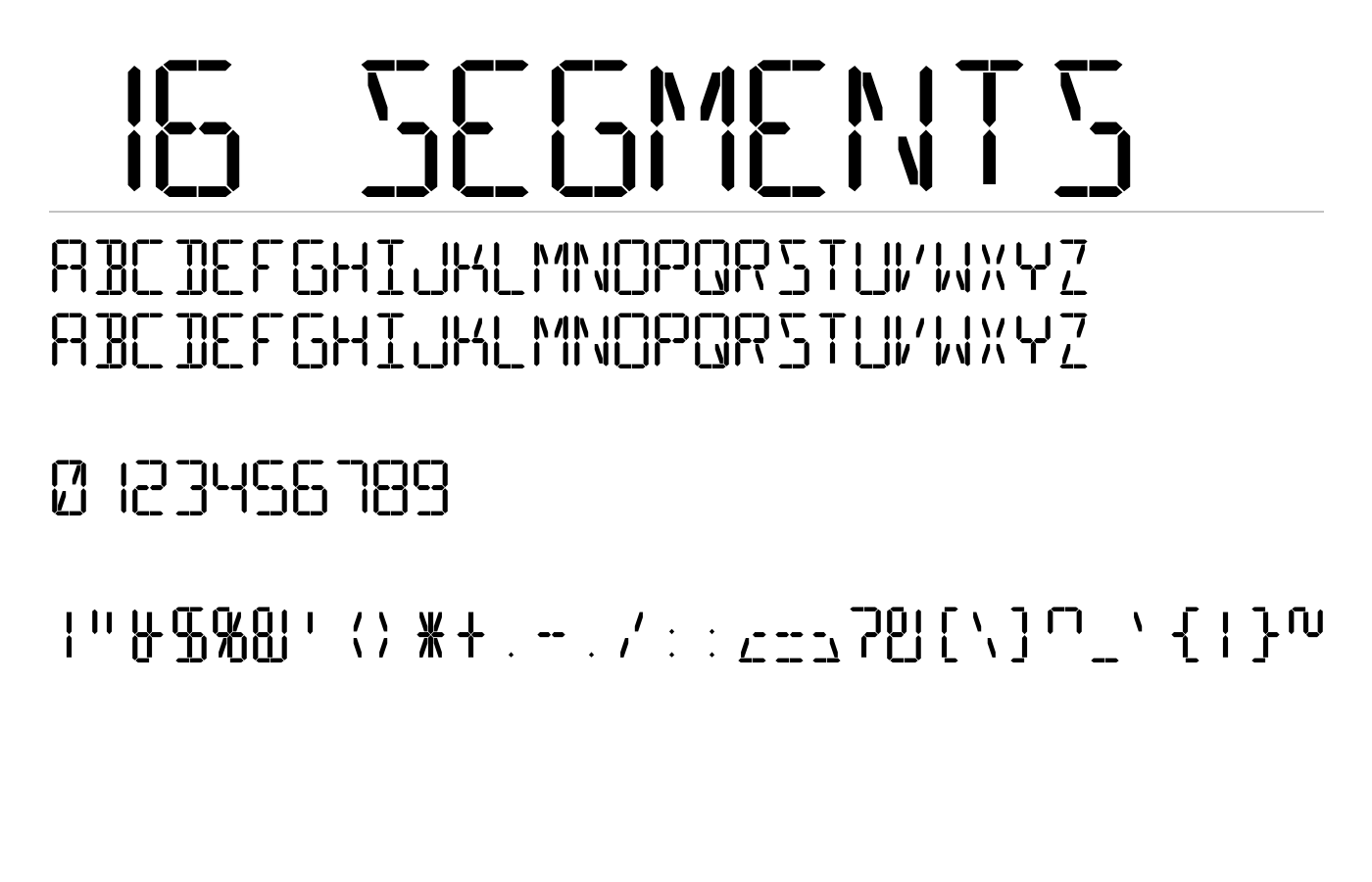
16 Segments Font is a monospace, sans serif typeface inspired by digital display technology, featuring geometric, segmented lines that create a mechanical and modern aesthetic. Its narrow, structured letterforms with consistent stroke weight evoke a futuristic, technical feel ideal for digital interfaces, tech branding, and retro-futuristic designs. This font works best in headlines and displays where a clean, tech-savvy vibe is needed.
16 Segments Font
About 16 Segments Font
| Font family | 16 Segments Font |
| Designer | Thor Christopher Arisland |